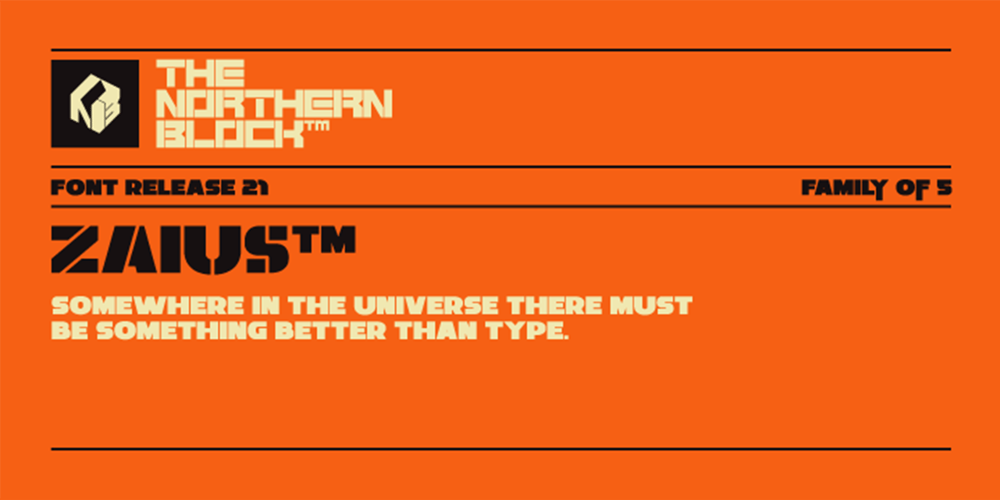
Zaius Font Family was designed by Jonathan Hill and published by The Northern Block. Zaius contains 5 styles and family package options. A bold sans serif typeface influenced by Ed Benguiat’s work for the 1968 movie poster for Planet of the Apes.